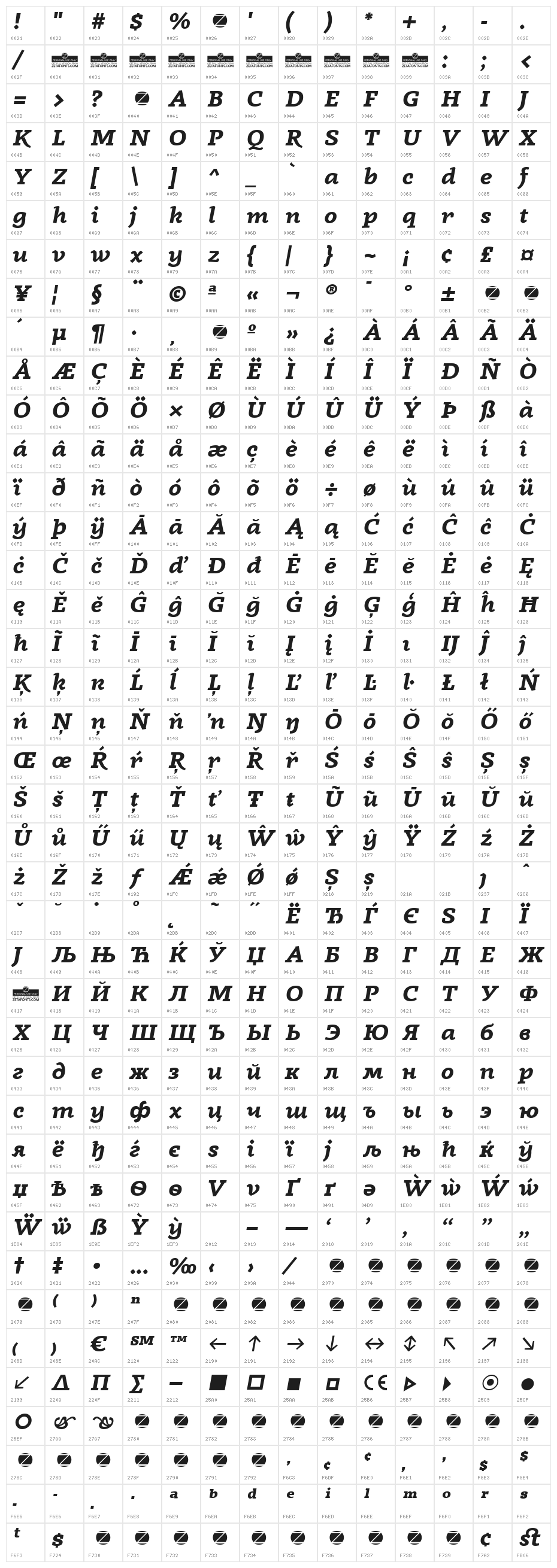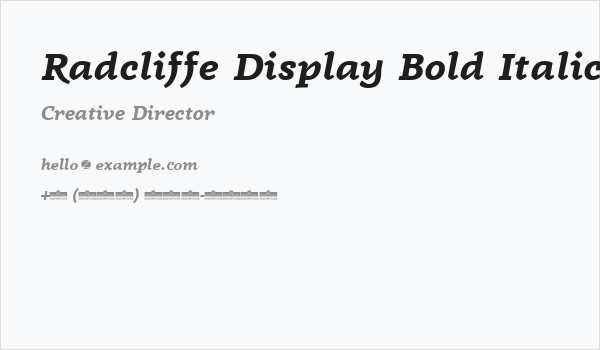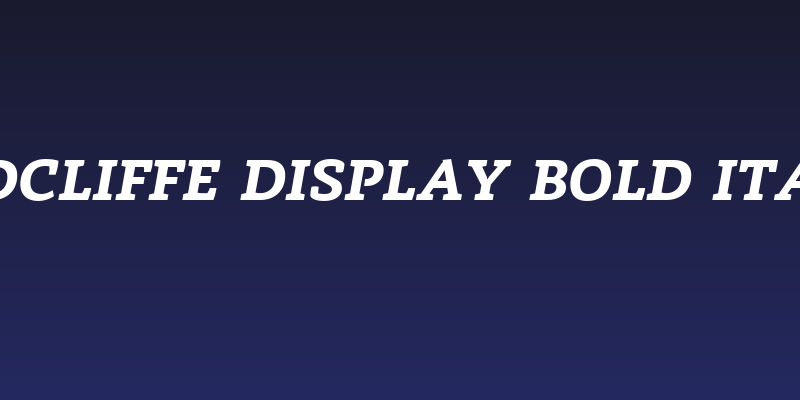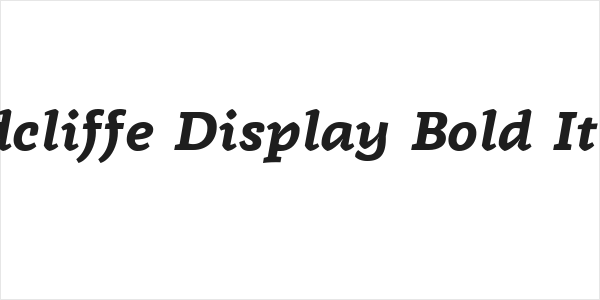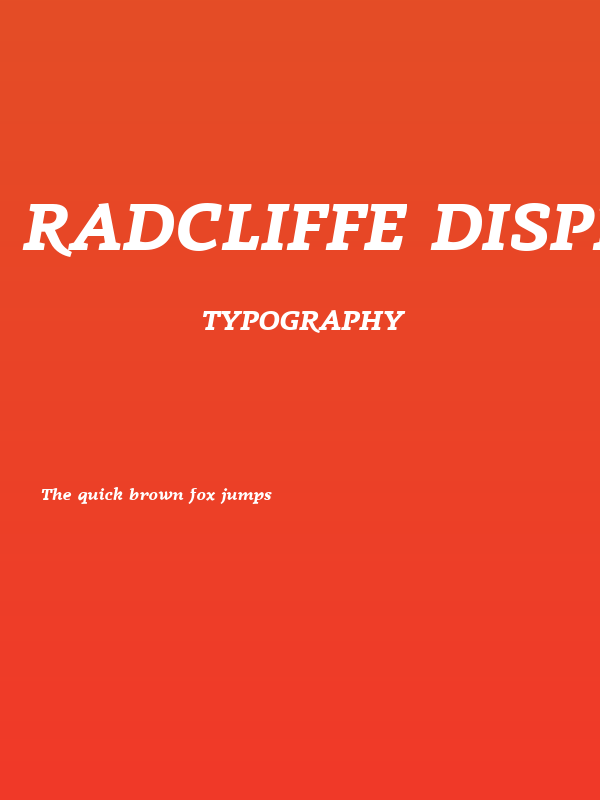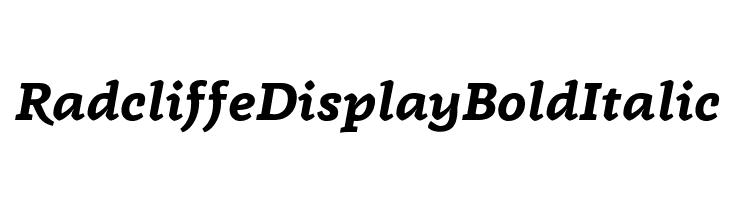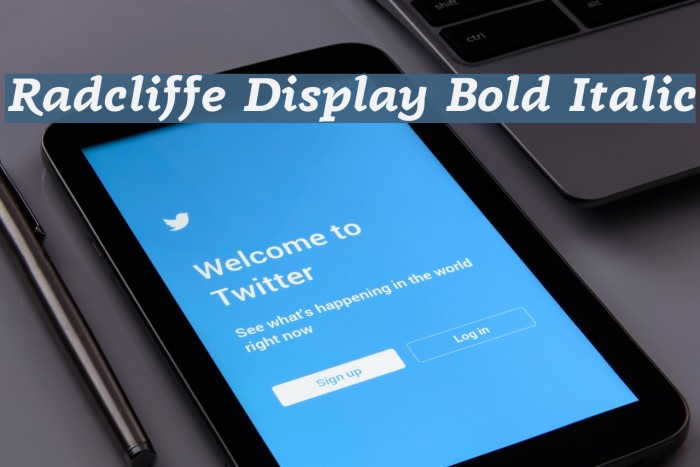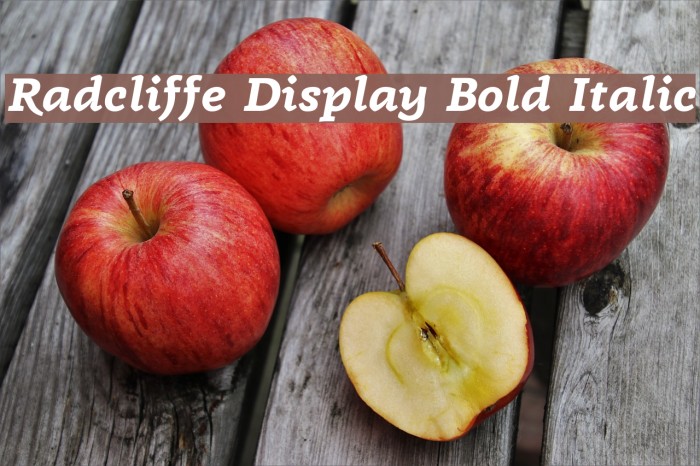
Radcliffe Display Bold Italic Font
Radcliffe Display Bold Italic Description
This font exhibits a bold and italicized style with a strong presence, making it ideal for display purposes. The characters are well-defined with a slight slant, adding a dynamic and elegant touch. The uppercase letters are robust and commanding, while the lowercase letters maintain a consistent flow, enhancing readability. The numerals and special characters are crafted with the same boldness, ensuring uniformity across all elements. This font's design is suitable for projects that require a bold statement and a touch of sophistication.
| Proposed Projects | Ideal for headlines, posters, branding, and any project that requires a strong visual impact. |